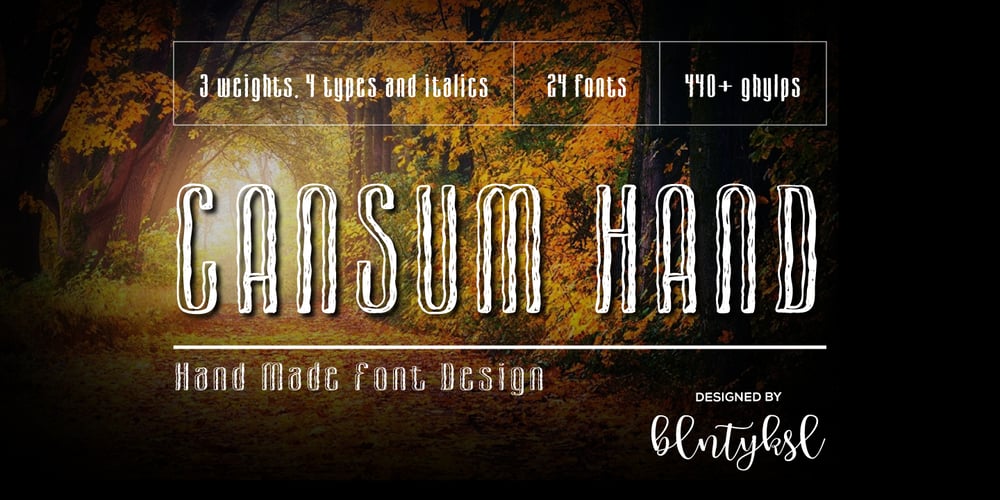
Cansum Hand Font Family was designed by Bülent Yüksel and published by Bülent Yüksel. Cansum Hand contains 24 styles and family package options. Cansum Hand, 24 fonts and 448 glyphs. It was made to brighten your projects, everything more beautiful. Cansum is my daughter name. Mean is life water. The hand drawn sans serif – display type family is intended to be used in applications like: websites, print, motion graphics, logo design, packaging design, t-shirts, food, clothes, living, wedding stationery and more… Cansum Hand for professional typography. As an exclusively OpenType release, these fonts have an extended character set to support Central and Eastern European as well as Western European languages. Alternates, Ligatures, Oldstyle, Fractions, Superior, Numerators, Denominators, Inferior and much more. You can enjoy using it.